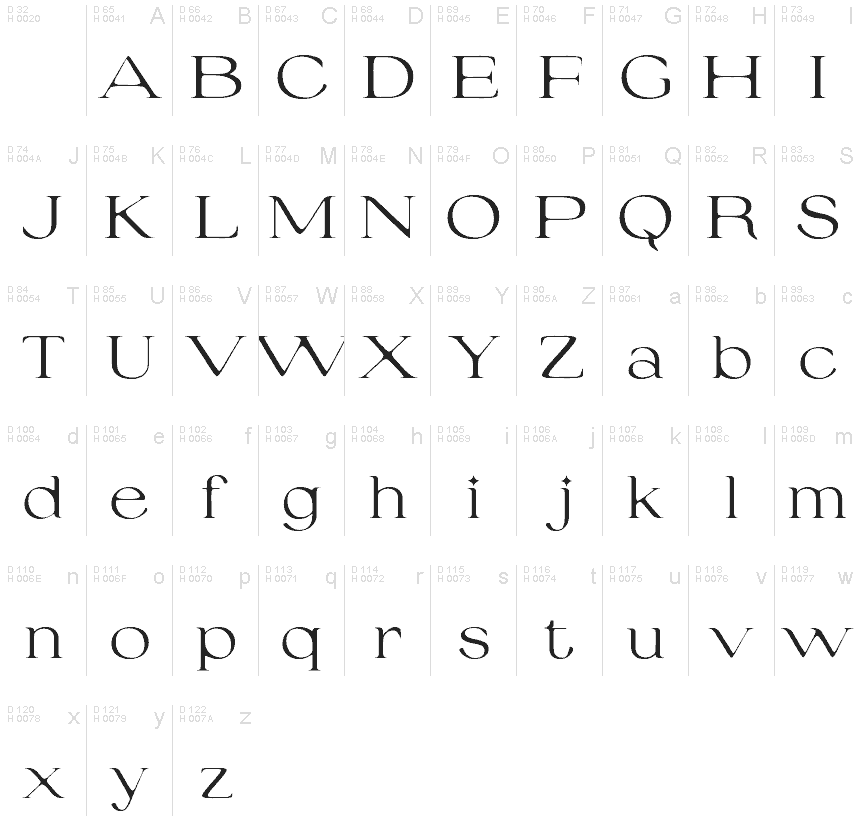
Fezeline Vintage Drawn font by Craft Supply Co is an elegant and sophisticated modern serif font. This expanded font with smooth curves and refined details shows its best when used in large sizes on packaging, posters, titles, and more. Fezeline also features signature ornamental elements that add to the overall sophistication of any design.
Fezeline is your free serif font for projects in greeting cards, headers, magazines, invitations (weddings, birthdays), quotes on pictures. Other uses include social media posts (Facebook & Instagram), journal covers, logotypes/branding designs, packaging labels for cosmetics or fashion items.